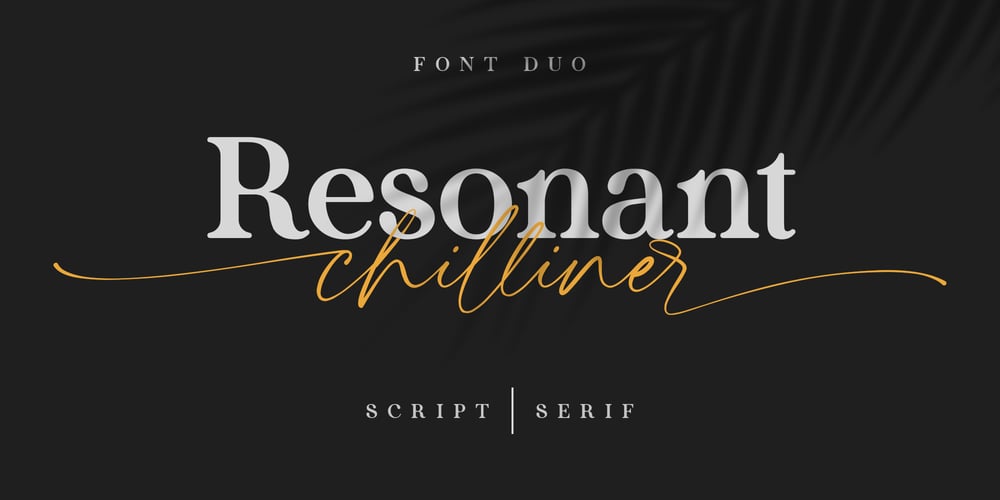
Resonant Chilliner Font Family was designed by Dwi Ahidian and published by Lemonthe. Resonant Chilliner contains 2 styles and family package options. Resonant Chilliner is a spectacular duo font (Serif and Script). Perfect for product packaging, branding project, magazine, social media, and much more. Add this font to your favorite creative ideas and notice how it makes them come alive!NOTE:Quick access beginning and ending swash with ligature, add (2-3)x underscore before or after lowercase a-z.